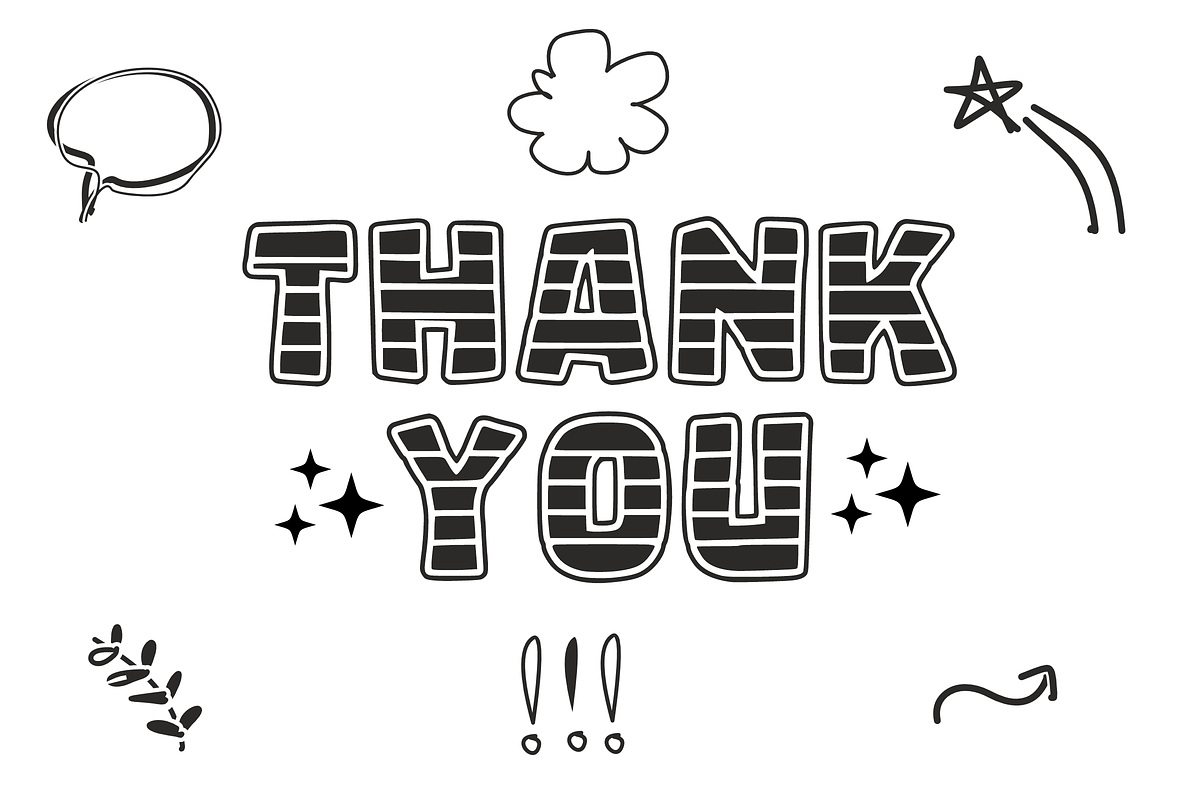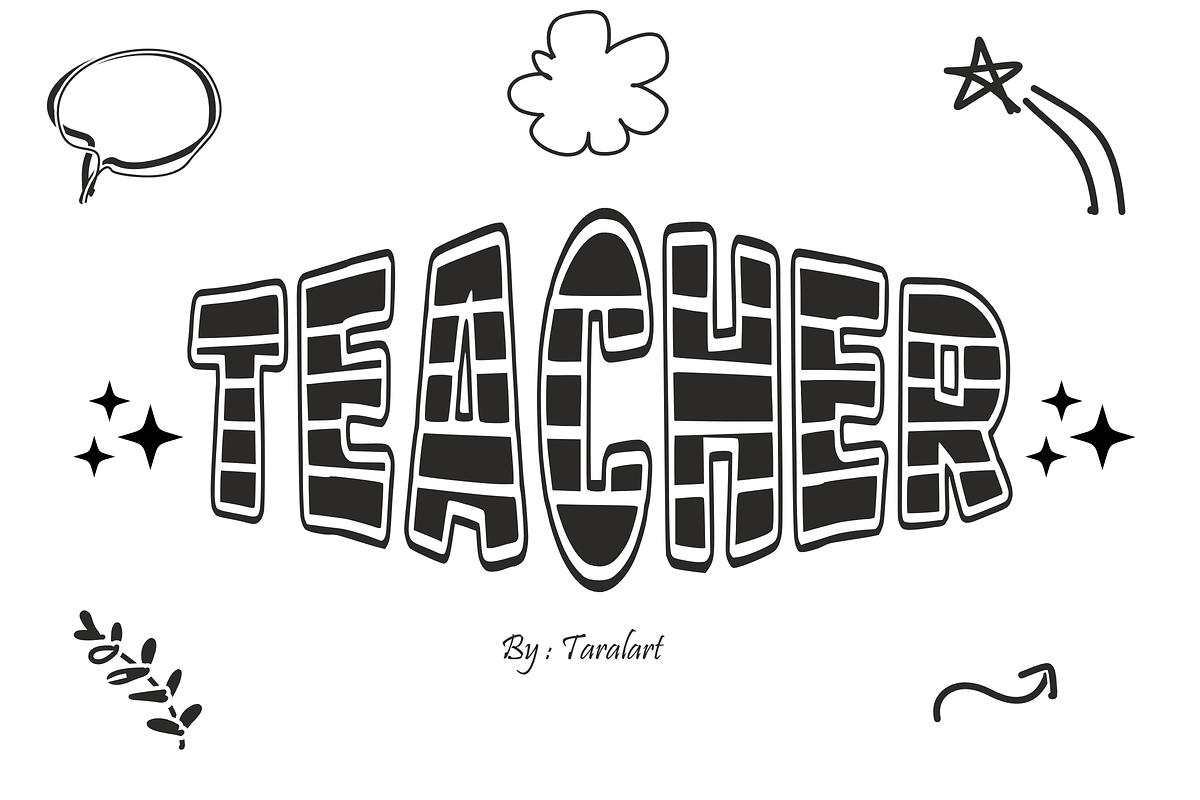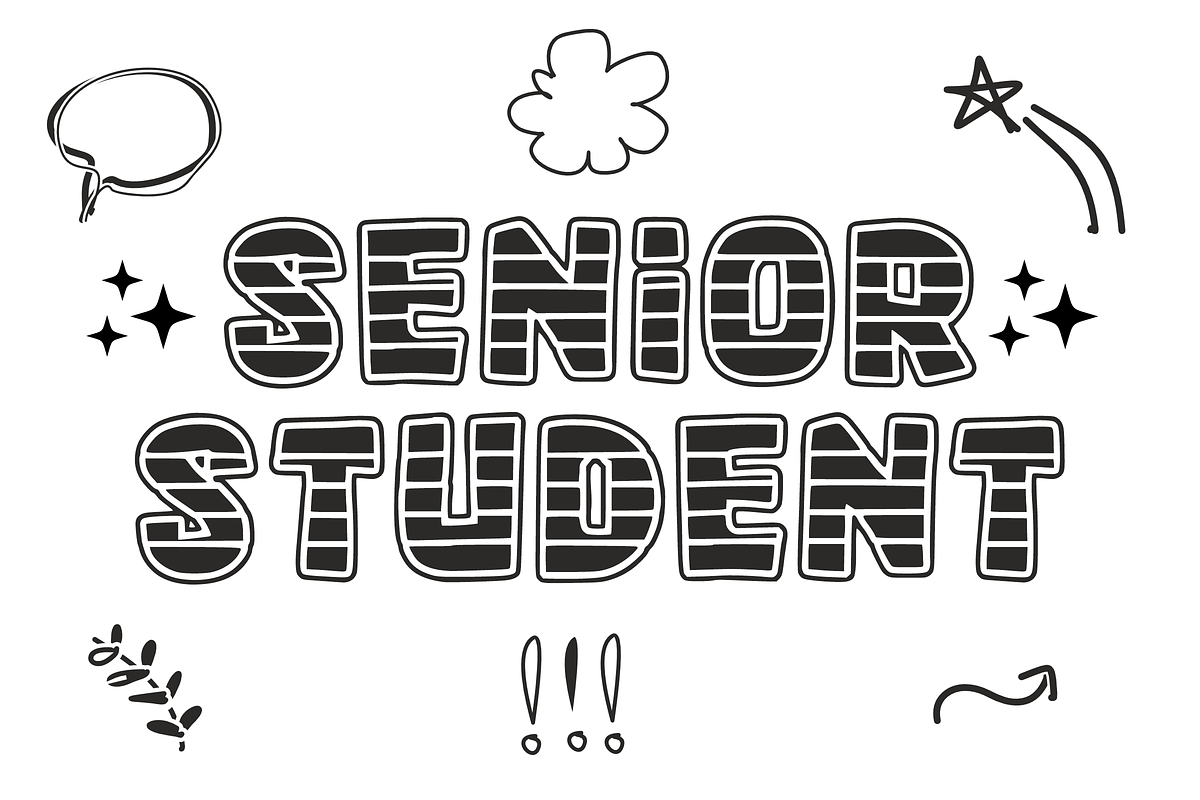
Teacher - Playful Classroom Font
Teacher - Playful Classroom Display Font
Brighten up your educational designs and classroom materials with Teacher! This cheerful, bold display font is beautifully crafted to make learning fun, engaging, and visually exciting. With its friendly structure and excellent readability, it’s the ultimate choice for teachers, crafters, and product creators alike.
Whether you are designing daily school worksheets, classroom bulletin boards, custom teacher appreciation gifts, or playful merchandise, Teacher ensures your projects stand out with a warm, welcoming vibe. It is highly versatile, cuts flawlessly on crafting machines like Cricut and Silhouette, and works seamlessly across all professional design software.
All-Caps Character Set (Bold, friendly uppercase letters optimized for headlines and titles)
Numbers & Simple Punctuation (Essential, clean symbols included)
Teacher Resources, Educational Worksheets, & Learning Flashcards ✏️
Classroom Decor, Bulletin Boards, & Welcome School Banners 🍎
Cricut, Silhouette, & DIY Academic Crafting Projects ✂️
Children's Book Covers, School Yearbooks, & Event Posters 📚
Kids' Apparel, Custom Teacher Tote Bags, & School Spirit Merch 👕
High-Impact Social Media Graphics, Educational Vlogs, & Playful Branding ✨